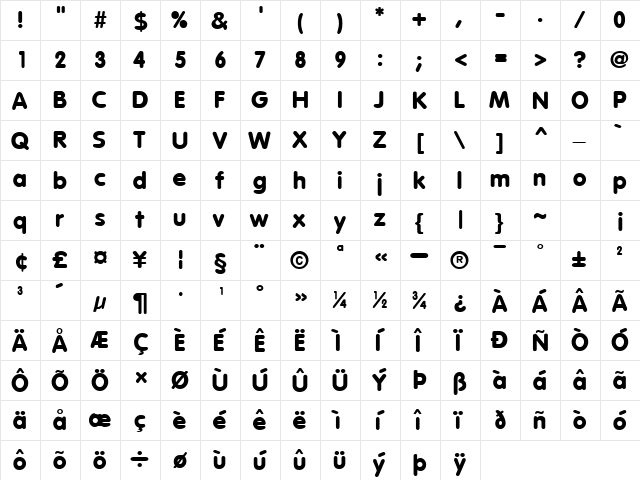
Born Bold
Design Context for Born Typeface
Born takes a measured approach to typography — its balanced proportions and neutral character make it a reliable workhorse for both digital and print work. The heavy weight commands attention and anchors typographic hierarchies.